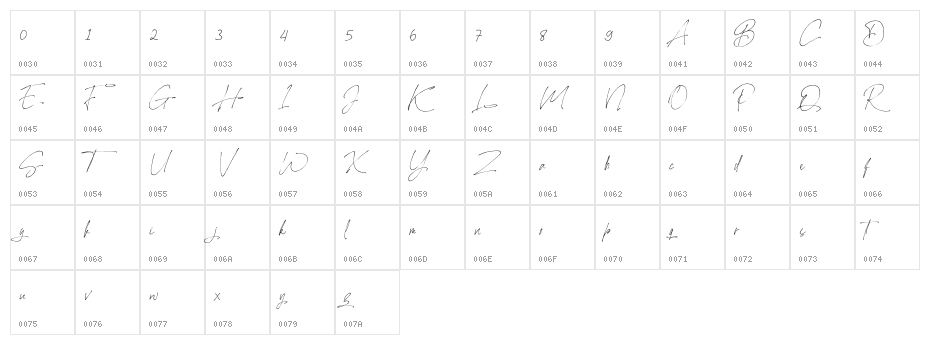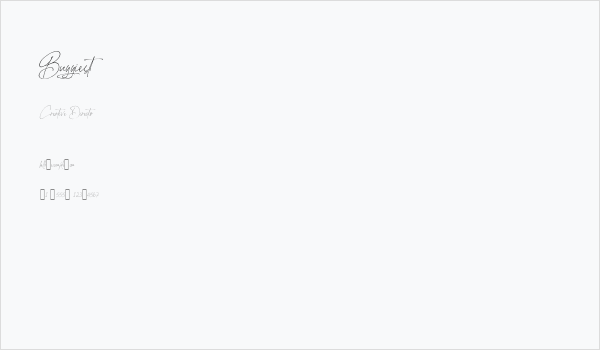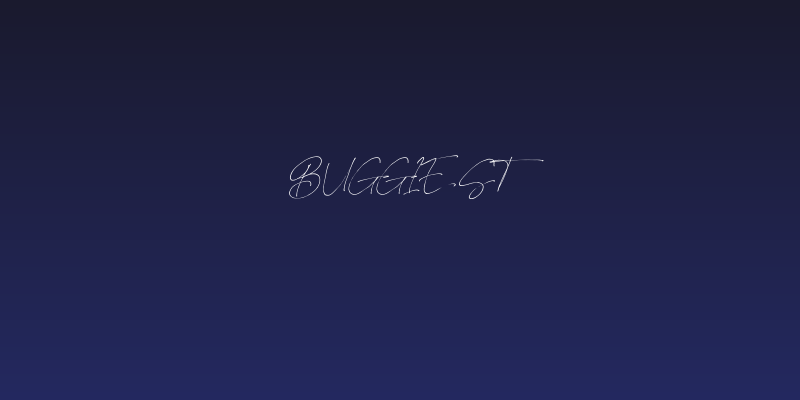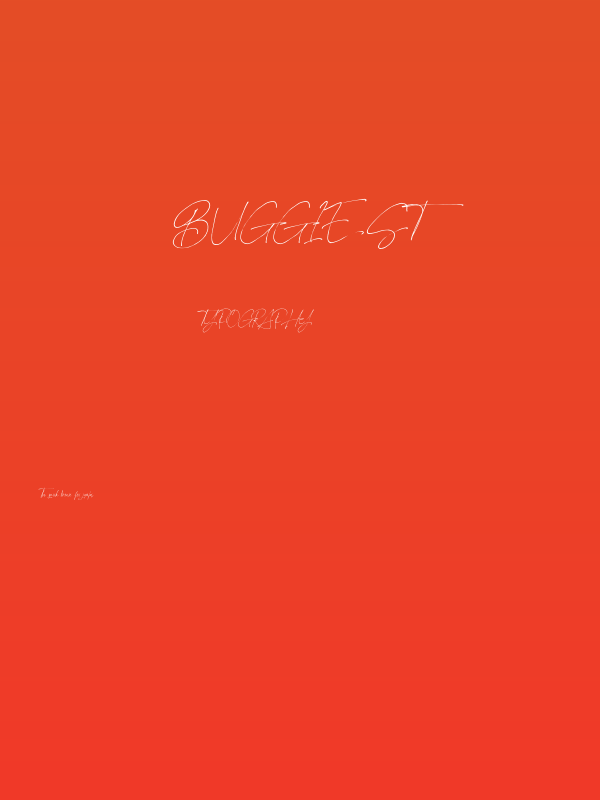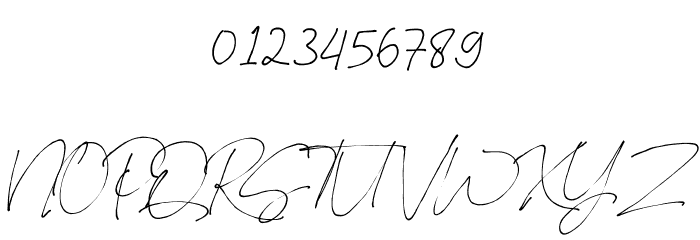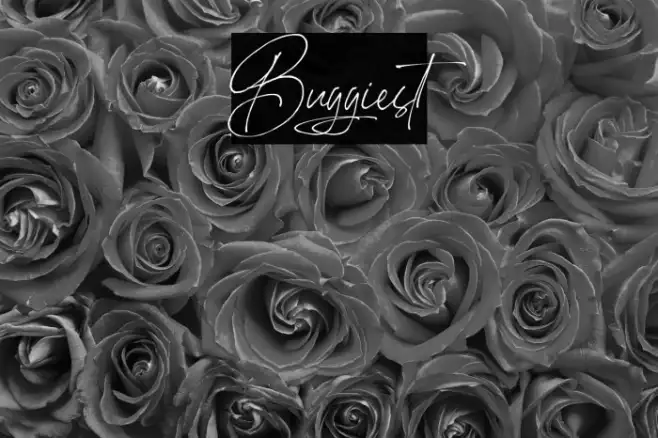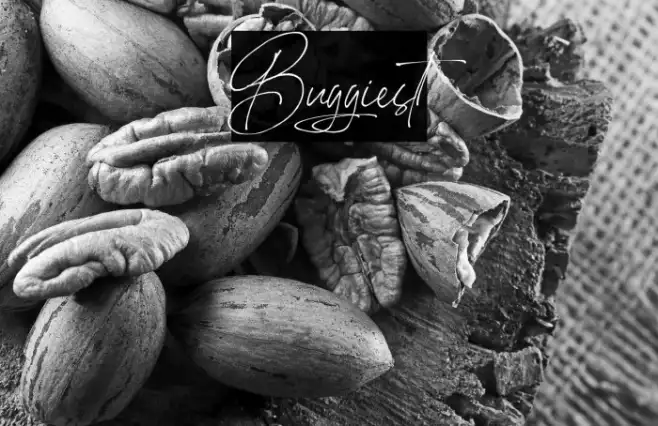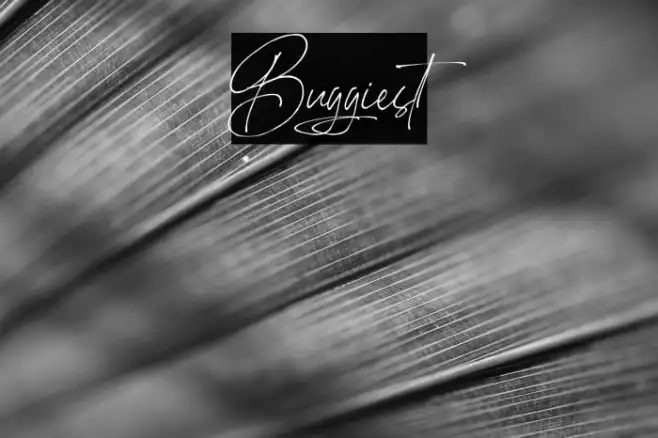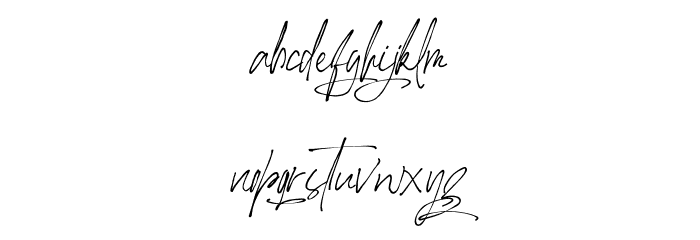
Buggiest Font
Buggiest Description
This font exudes a dynamic and expressive style, characterized by its fluid, cursive strokes that mimic the elegance of handwritten script. The letters are interconnected with sweeping lines and loops, creating a sense of movement and flow. The uppercase letters are particularly elaborate, with exaggerated flourishes that add a touch of sophistication. The lowercase letters maintain a consistent style, though they are slightly more restrained in their embellishments. The numerals are clear and maintain the same cursive style, ensuring consistency throughout. This font is ideal for projects that require a personal, artistic touch, such as invitations, greeting cards, or branding materials that aim to convey elegance and creativity.
| Use Case | Headlines, Artistic projects, Invitations |
| Proposed Projects | Ideal for invitations, greeting cards, artistic branding, and creative design projects. |